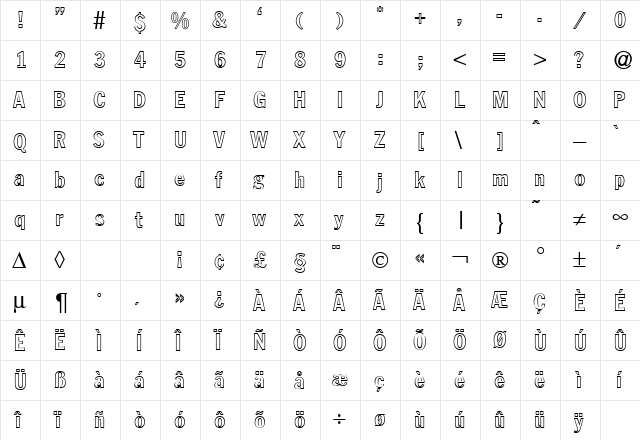
FranklinHeadlineCondOut Bold Font Preview
Design Context for FranklinHeadlineCondOut Typeface
FranklinHeadlineCondOut takes a measured approach to typography — its balanced proportions and neutral character make it a reliable workhorse for both digital and print work. The heavy weight commands attention and anchors typographic hierarchies. The condensed width makes it efficient for tight spaces without sacrificing legibility.